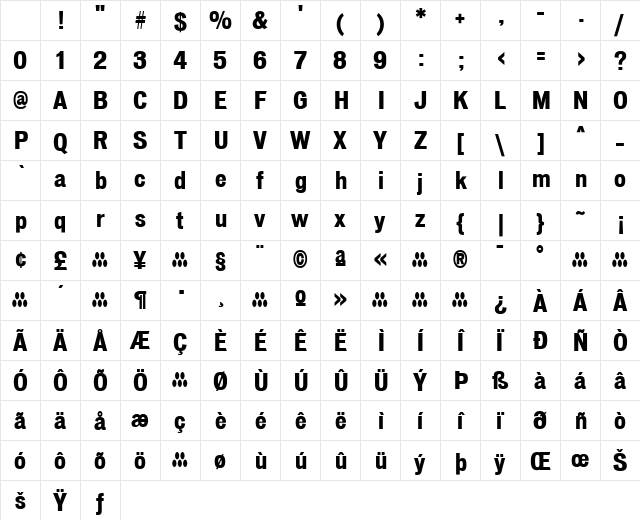
Complete Vonnes Regular glyph index. Displaying only characters natively supported by Vonnes Regular font.
Vonnes is a composed and adaptable typeface that performs quietly and consistently across a wide range of design contexts.
Who designed the Vonnes Regular font?